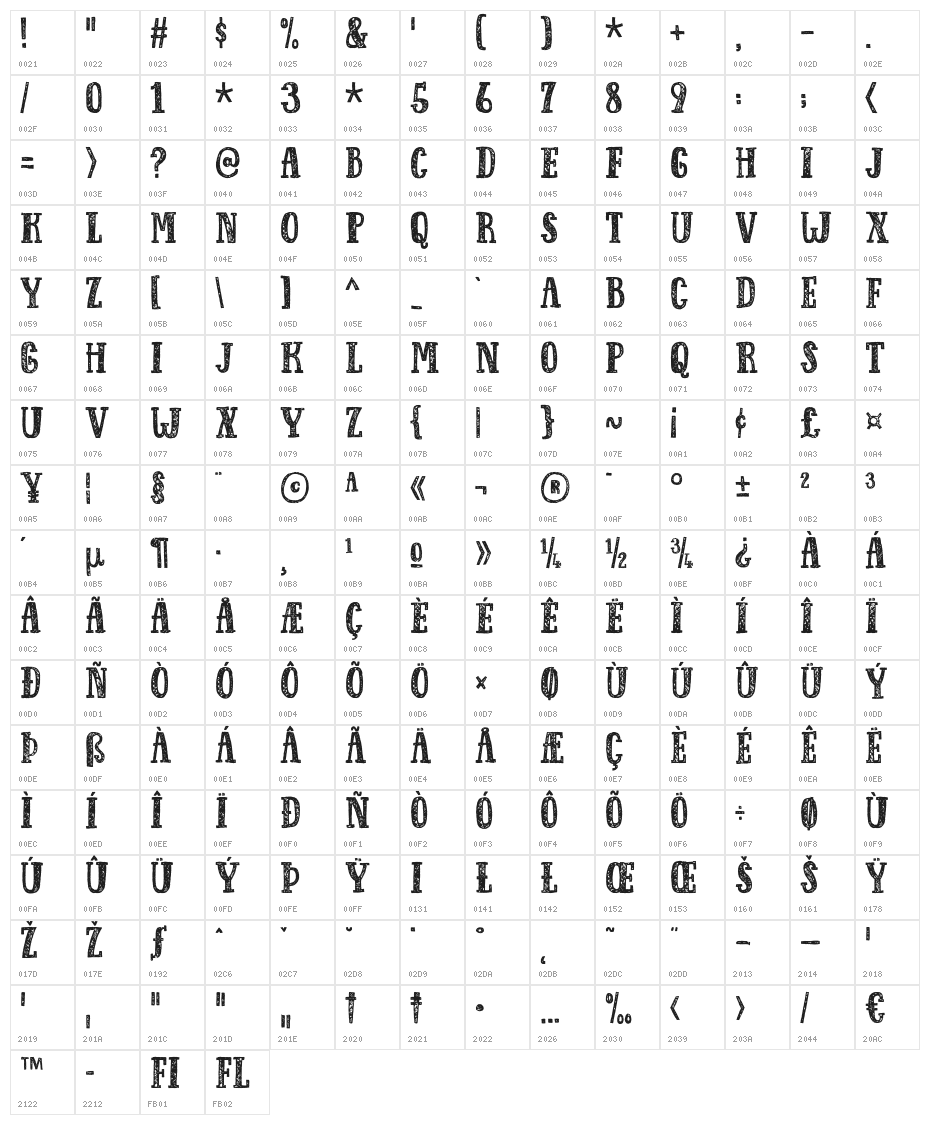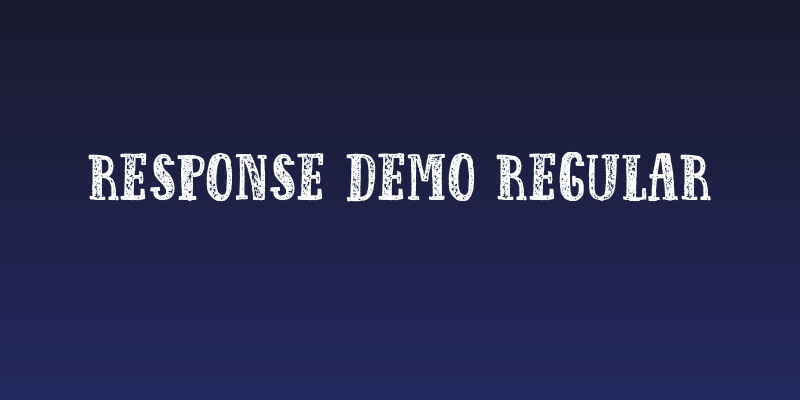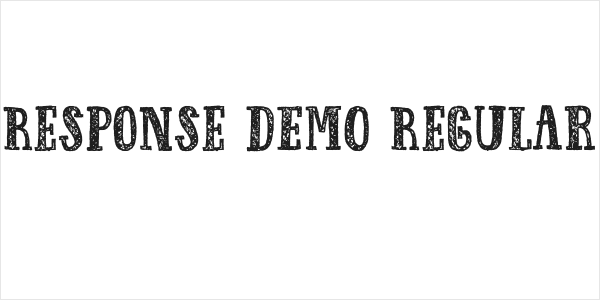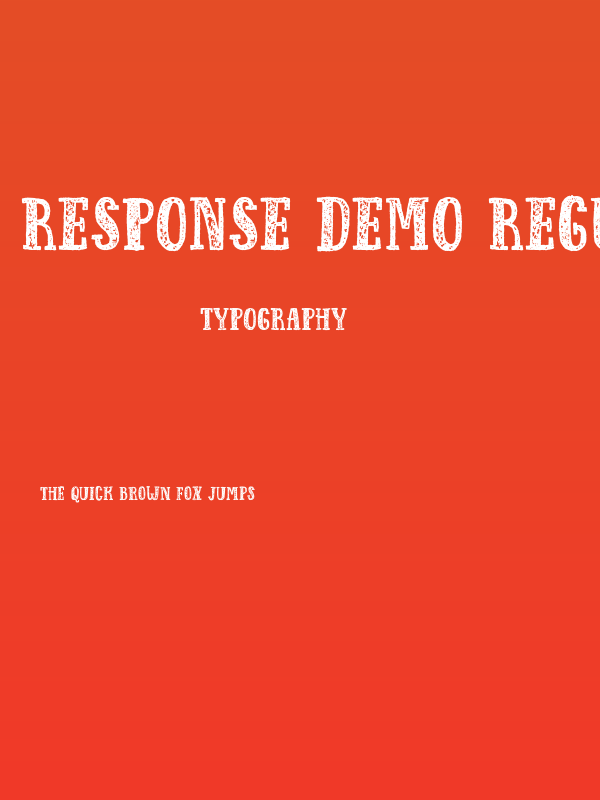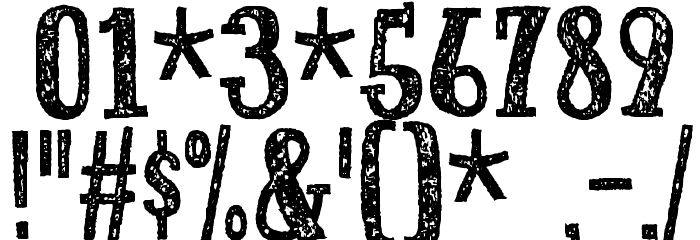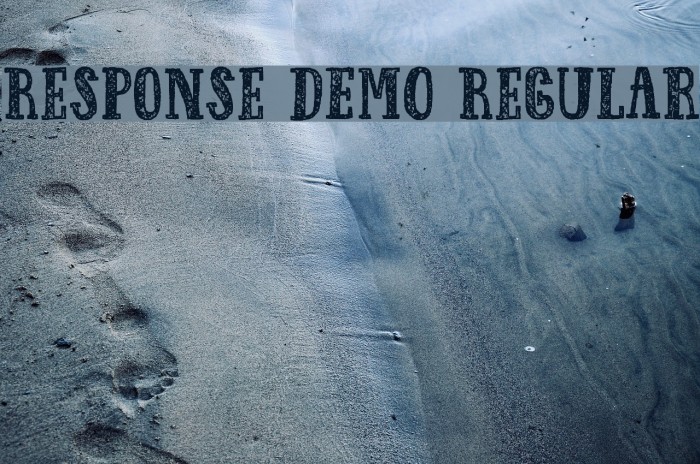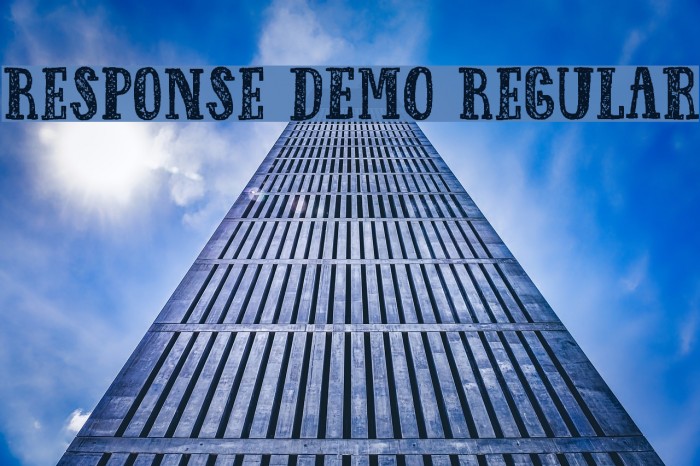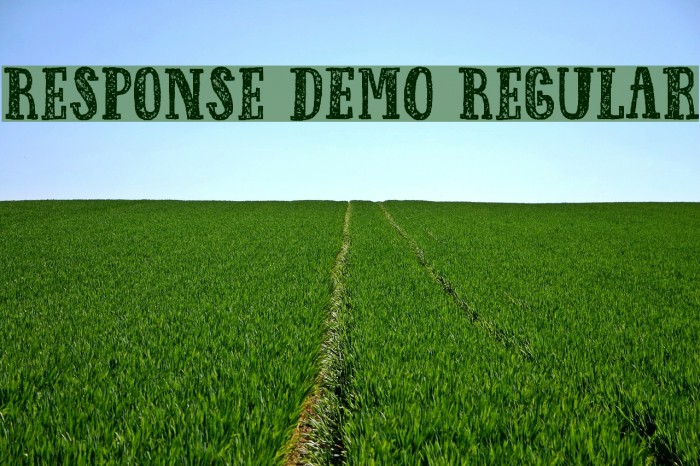
Response DEMO Regular Font
Response DEMO Regular Description
This font features a bold, distressed style with a textured appearance that gives it a rugged, vintage feel. The uppercase and lowercase letters maintain a consistent weight, with thick strokes and slightly rounded edges. The numbers and special characters share the same distressed texture, adding to the cohesive look of the font. The overall design is reminiscent of old printing techniques, making it ideal for projects that require a retro or industrial aesthetic. The spacing between characters is normal, allowing for readability while maintaining its unique style.
| Proposed Projects | Ideal for vintage-themed posters, logos, branding, and packaging designs. |